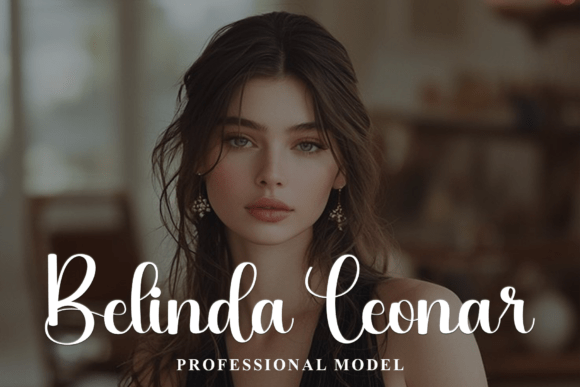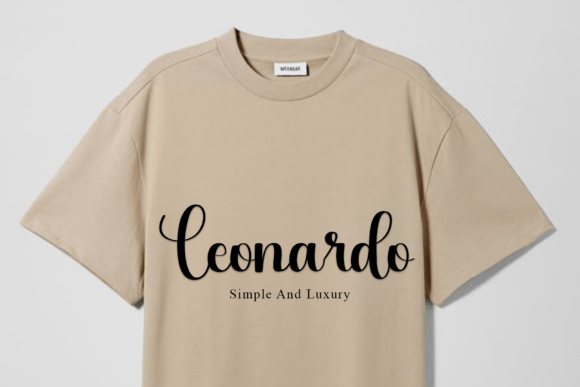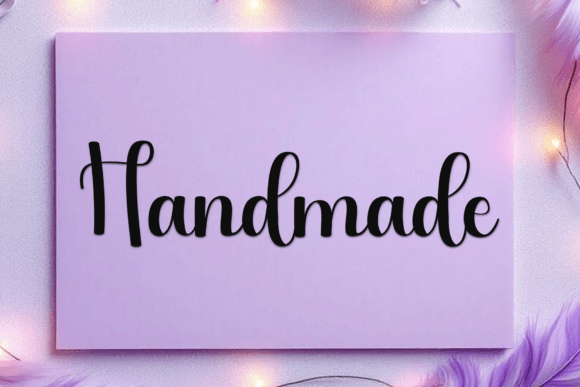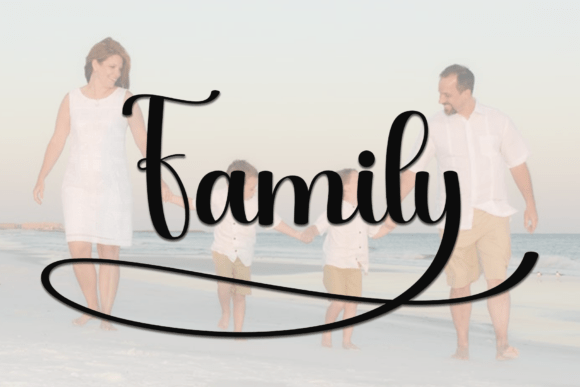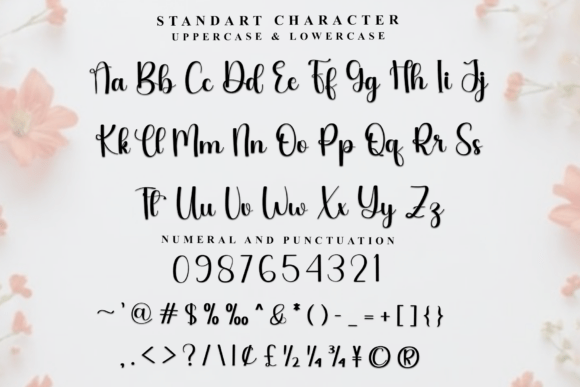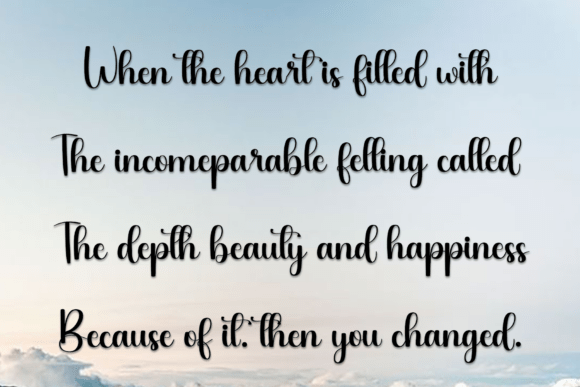
Aesthetic Havenlight Font: Elevate Your Designs with a Unique Touch
In the world of design, typography plays a crucial role in conveying messages, expressing creativity, and capturing the audience’s attention. Aesthetic Havenlight Font is a stunning addition to the realm of typography, offering a soft, unique touch that sets it apart from other fonts. Its distinctive strokes and versatile nature make it an ideal choice for designers, crafters, and creative professionals looking to add a special character to their projects.
The Beauty of Aesthetic Havenlight Font
Aesthetic Havenlight Font boasts a beautiful and eye-catching design, making it perfect for a wide range of applications. Its soft and unique touch gives it a distinctive feel, allowing designers to add a personal touch to their creations. The font’s versatility is evident in its various characters, which can be used to create visually appealing designs that cater to diverse artistic and creative fields.
Key Features of Aesthetic Havenlight Font
- Unique and Distinctive Strokes: Aesthetic Havenlight Font features distinctive strokes that give it a special character, making it stand out from other fonts.
- Versatile and Meaningful: The font’s design is not only aesthetically pleasing but also meaningful, making it perfect for use in various design projects, crafts, and creative works.
- Ideal for Design Projects and Crafts: The font’s natural style and unique touch make it perfect for use in design projects, crafts, and other creative endeavors.
Benefits of Using Aesthetic Havenlight Font
Using Aesthetic Havenlight Font in your design projects can have numerous benefits. Its unique and distinctive strokes can help you:
- Stand Out in a Crowded Market: With Aesthetic Havenlight Font, you can create designs that are visually appealing and distinctive, setting you apart from competitors.
- Enhance Your Brand’s Visual Identity: The font’s soft and unique touch can help you create a consistent visual brand identity that resonates with your target audience.
- Increase Engagement and Appeal: Aesthetic Havenlight Font’s natural style and versatility can help you create designs that appeal to a wide range of audiences, increasing engagement and conversion rates.
Applications of Aesthetic Havenlight Font
Aesthetic Havenlight Font is an incredibly versatile font that can be used in a variety of applications, including:
- Graphic Design: Use Aesthetic Havenlight Font to create stunning graphic designs, such as brochures, flyers, and posters.
- Crafts and DIY Projects: Add a personal touch to your crafts and DIY projects, such as handmade cards, gift tags, and decorations.
- Digital Art and Illustration: Use Aesthetic Havenlight Font to create beautiful digital art and illustrations that showcase your creativity.
Aesthetic Havenlight Font is a beautiful and versatile font that can elevate your designs and add a unique touch to your creative projects. Its distinctive strokes, natural style, and compatibility with various applications make it an ideal choice for designers, crafters, and creative professionals. Whether you’re looking to create stunning graphic designs, crafts, or digital art, Aesthetic Havenlight Font is the perfect choice to help you stand out and capture your audience’s attention.